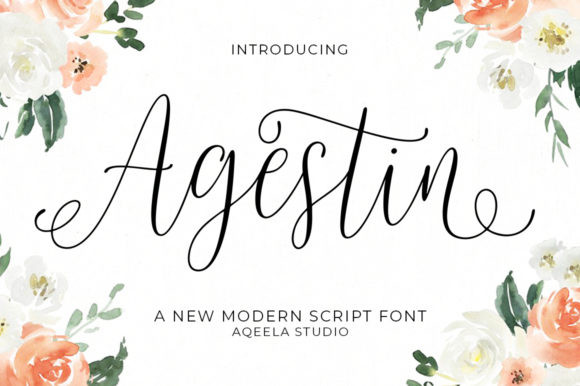
Agestin Font
Agestin is an incredibly thin, delicate and elegant handwritten font. It looks stunning on wedding invitations, thank you cards, quotes, greeting cards, logos, business cards and every other design which needs a handwritten touch. This font is PUA encoded which means you can access all of the glyphs and swashes with ease!